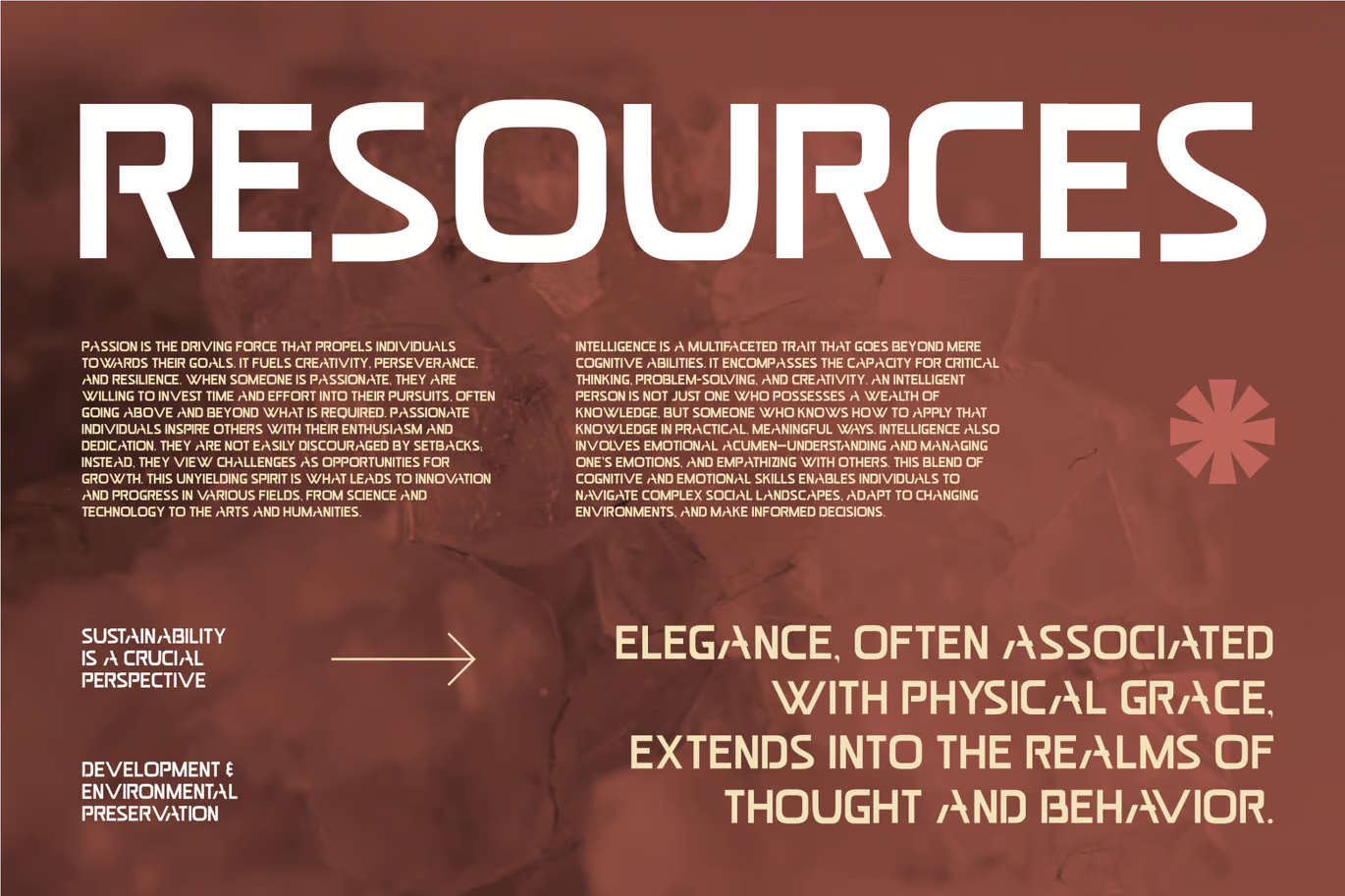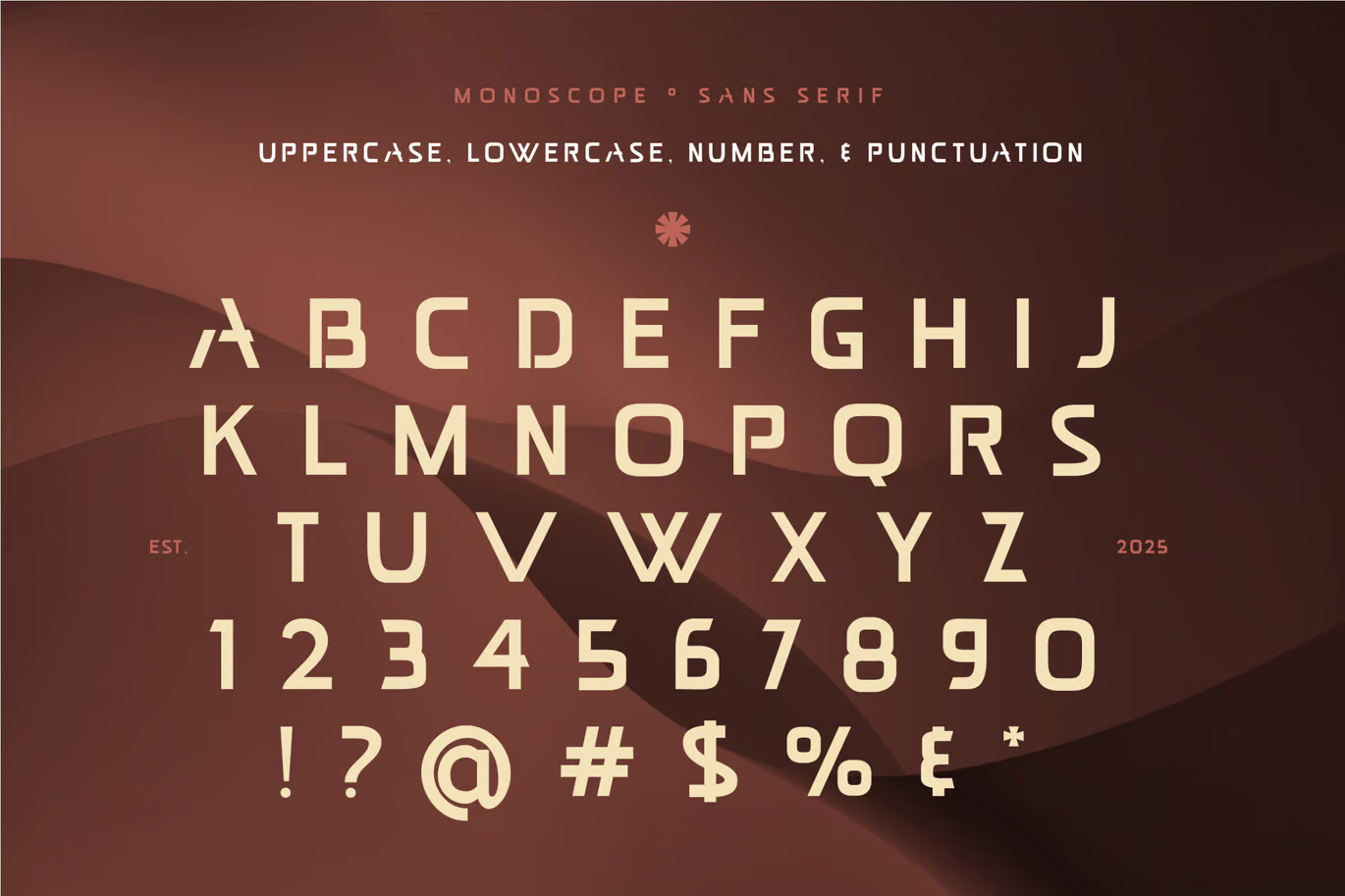
Monoscope Sans Serif Font
Elevate your designs with Hendritage, a sophisticated and modern typeface that brings elegance and style to any project. With its refined letterforms and timeless appeal, this font is perfect for a wide range of creative applications, including quotes, logotypes, magazine headers, branding, invitations, and more. Its versatility ensures your text stands out beautifully, adding a touch of class and professionalism to your work.
Monoscope Elegant Sans Serif Font